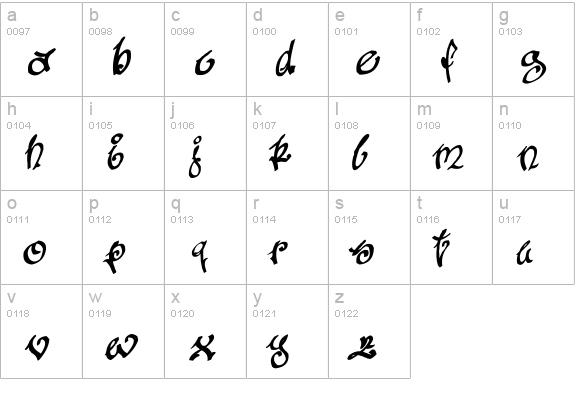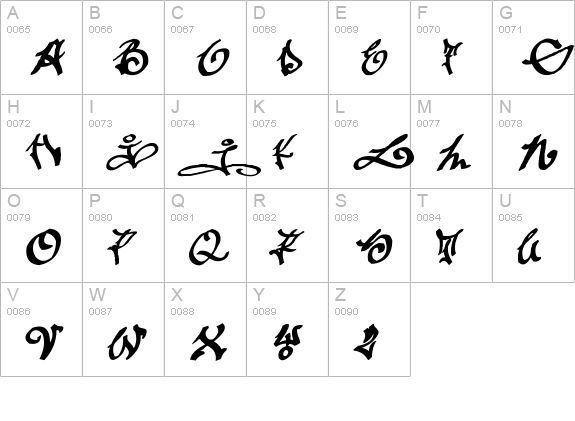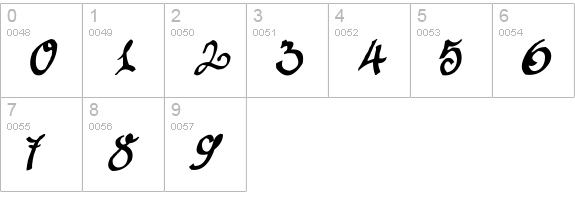
Tagging Zher 1 Font Details
Tagging Zher 1 font is a stylish and modern typeface that exudes an urban and graffiti-inspired feel. With its bold and eye-catching design, this font is perfect for adding a touch of edginess and creativity to any project. The unique letterforms have a hand-drawn appearance, giving it a personalized and artistic look that stands out from the crowd. What makes Tagging Zher 1 font even more appealing is that it is available for free download at FontsMarket.com. This means that you can easily access and use this font without any cost, making it a fantastic option for designers, artists, and anyone looking to add a contemporary and urban vibe to their work. Whether you're creating posters, flyers, logos, or social media graphics, Tagging Zher 1 font is sure to make a statement. The versatility of Tagging Zher 1 font is another reason to love it. It works well in both small and large sizes, making it suitable for various design applications. The characters are legible and well-defined, ensuring that your message is conveyed clearly and effectively. With its free availability at FontsMarket.com, Tagging Zher 1 font is a must-have for anyone seeking a fresh and modern typeface that captures the essence of urban art. Download it today and let your creativity run wild as you explore the endless possibilities this font has to offer.